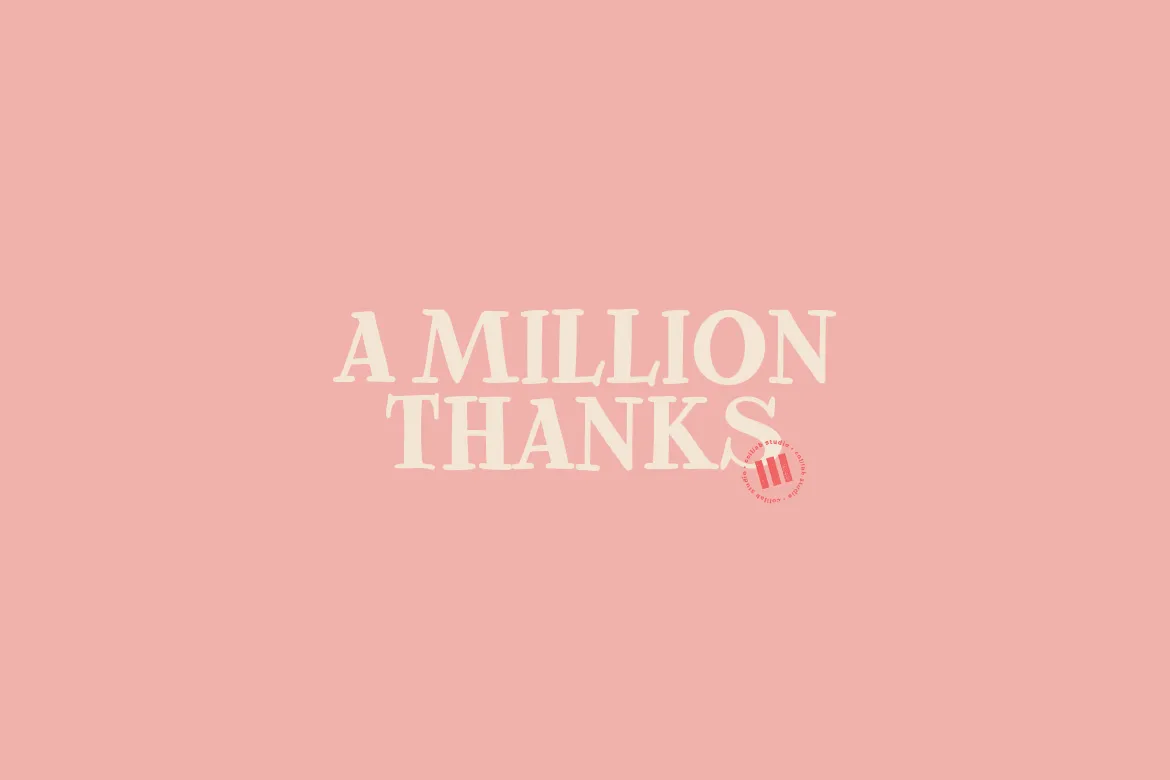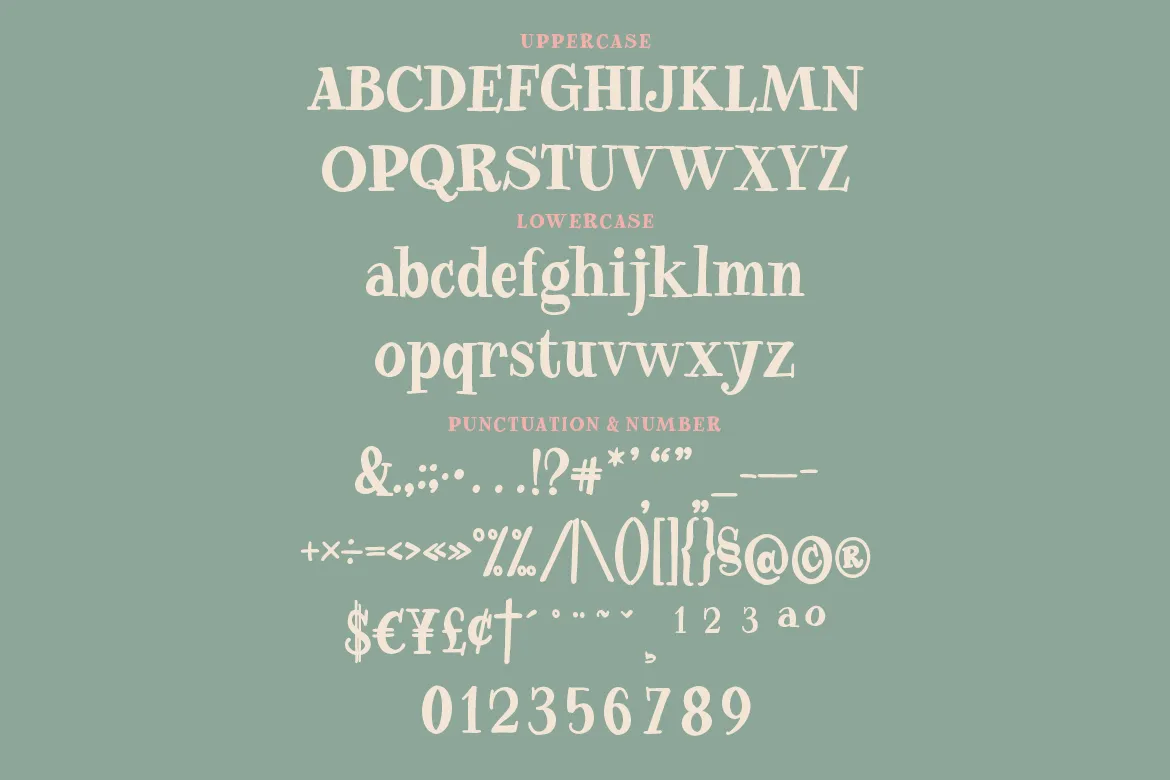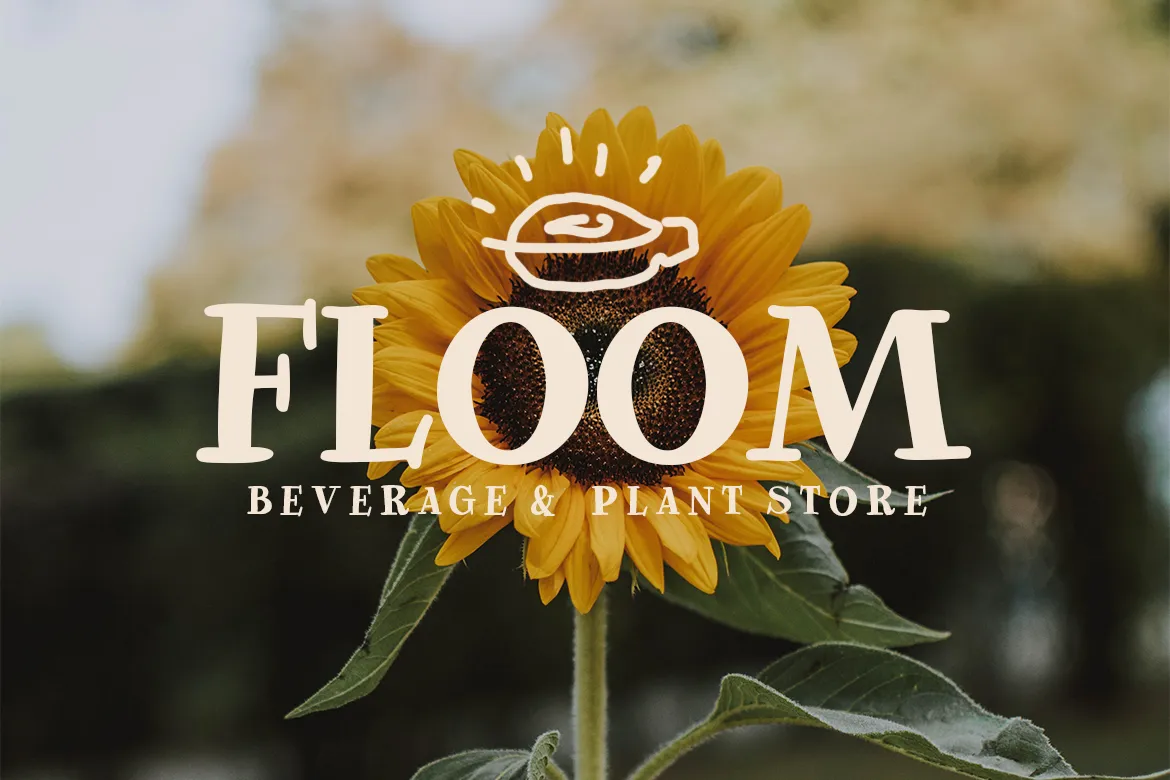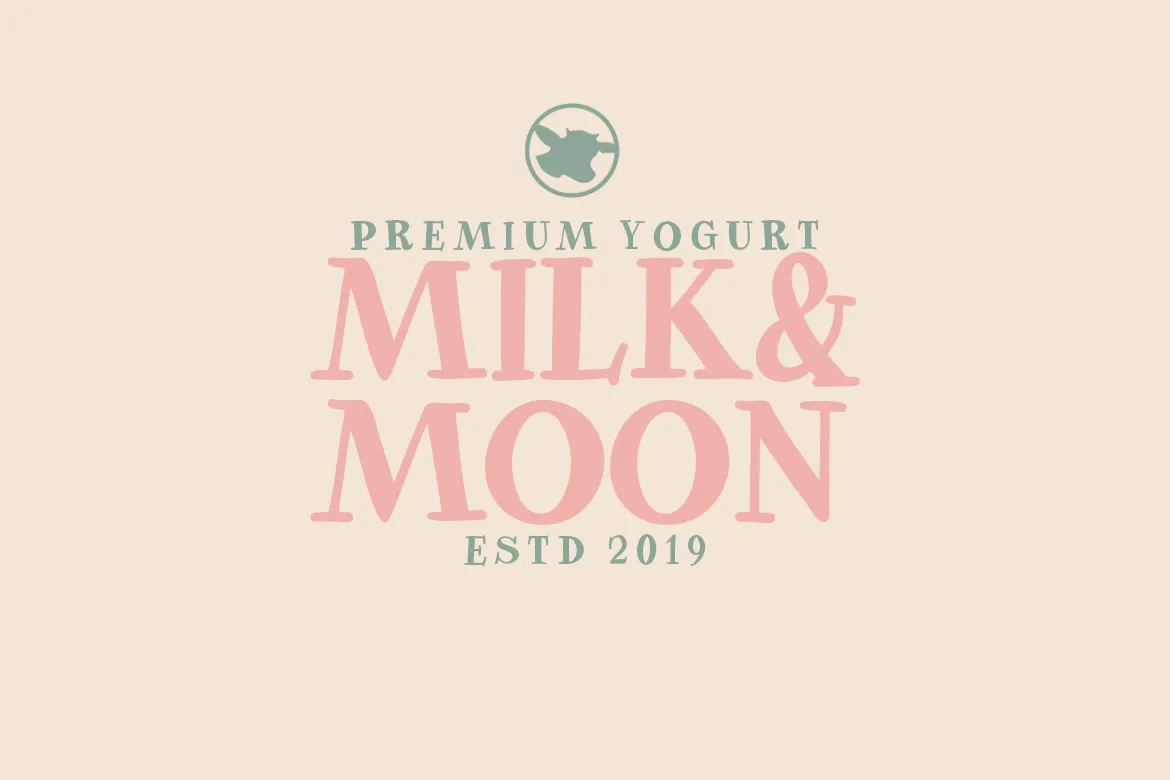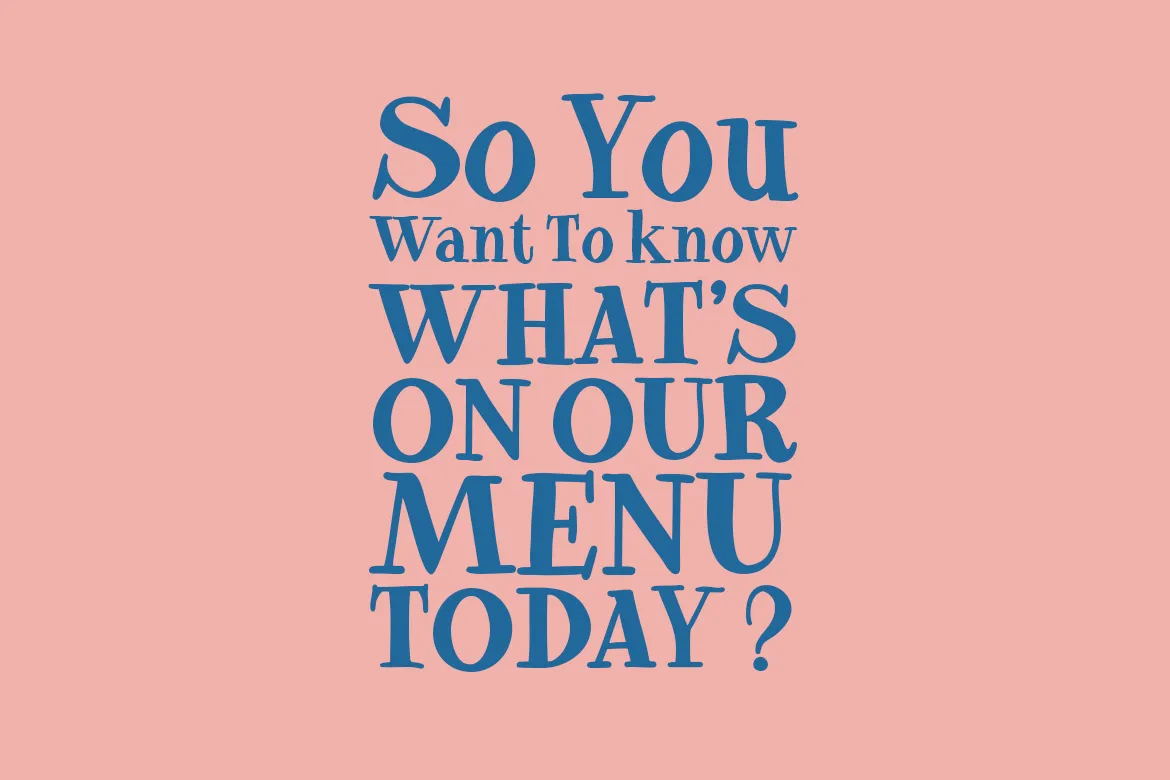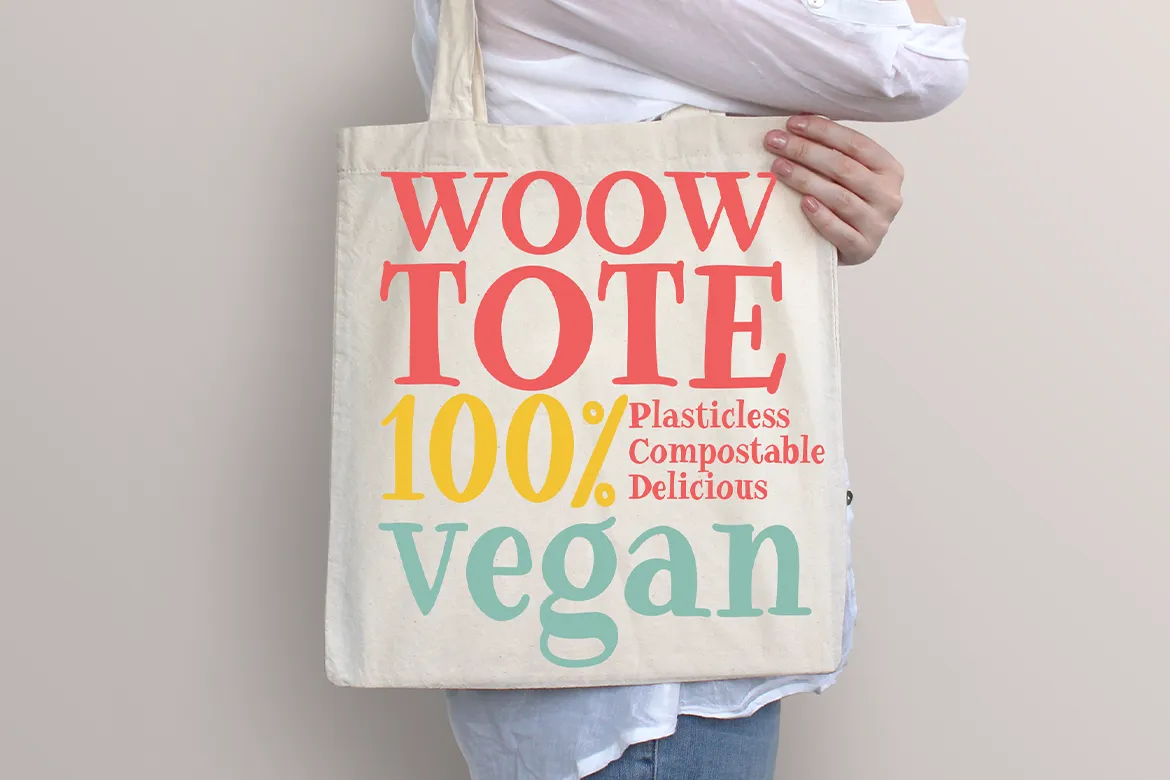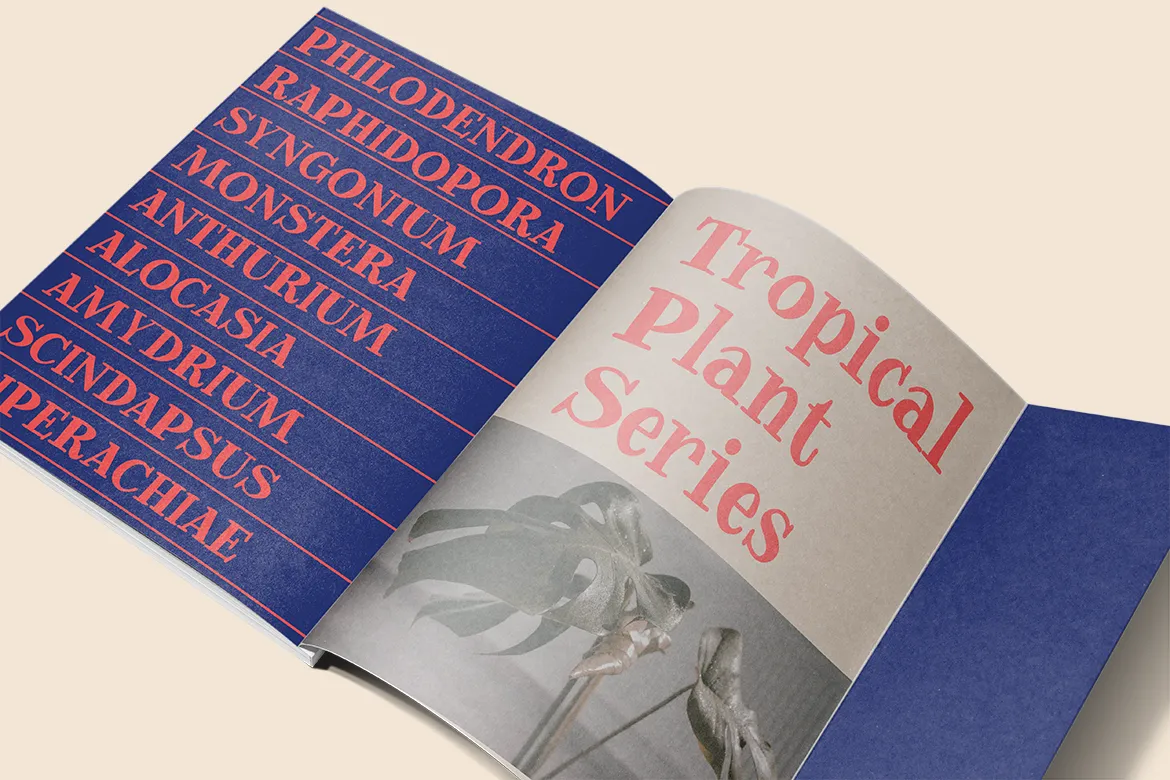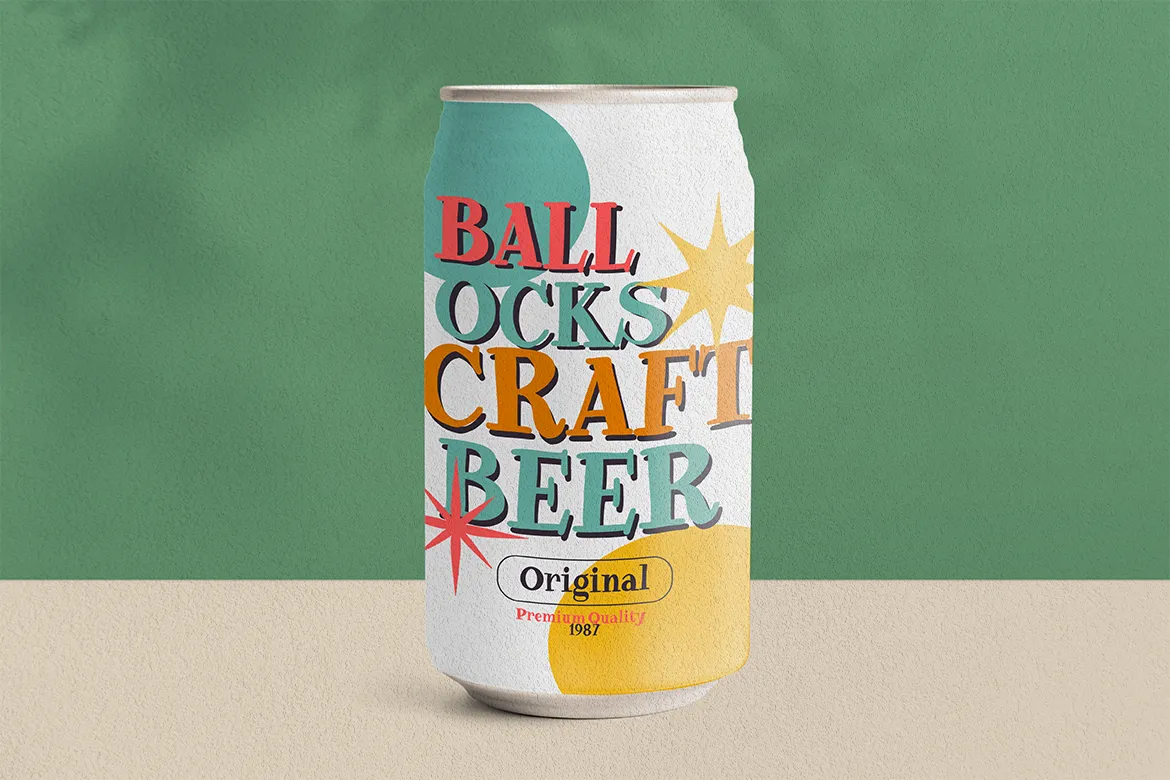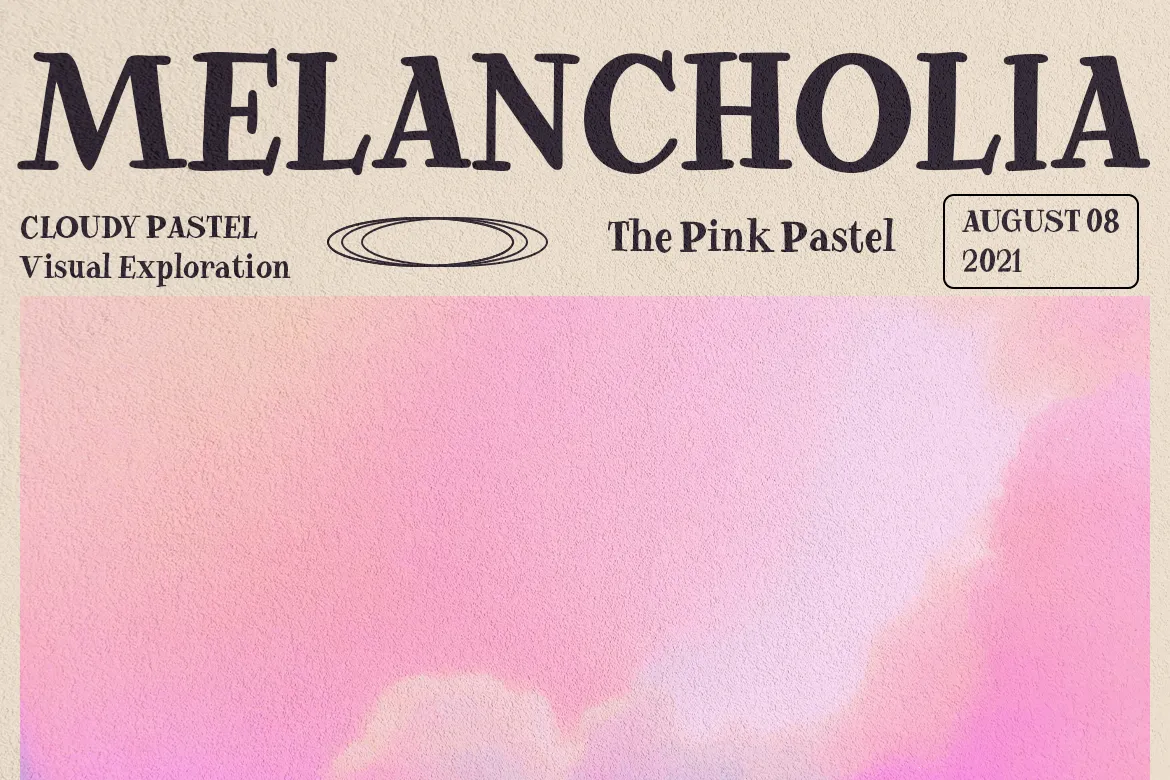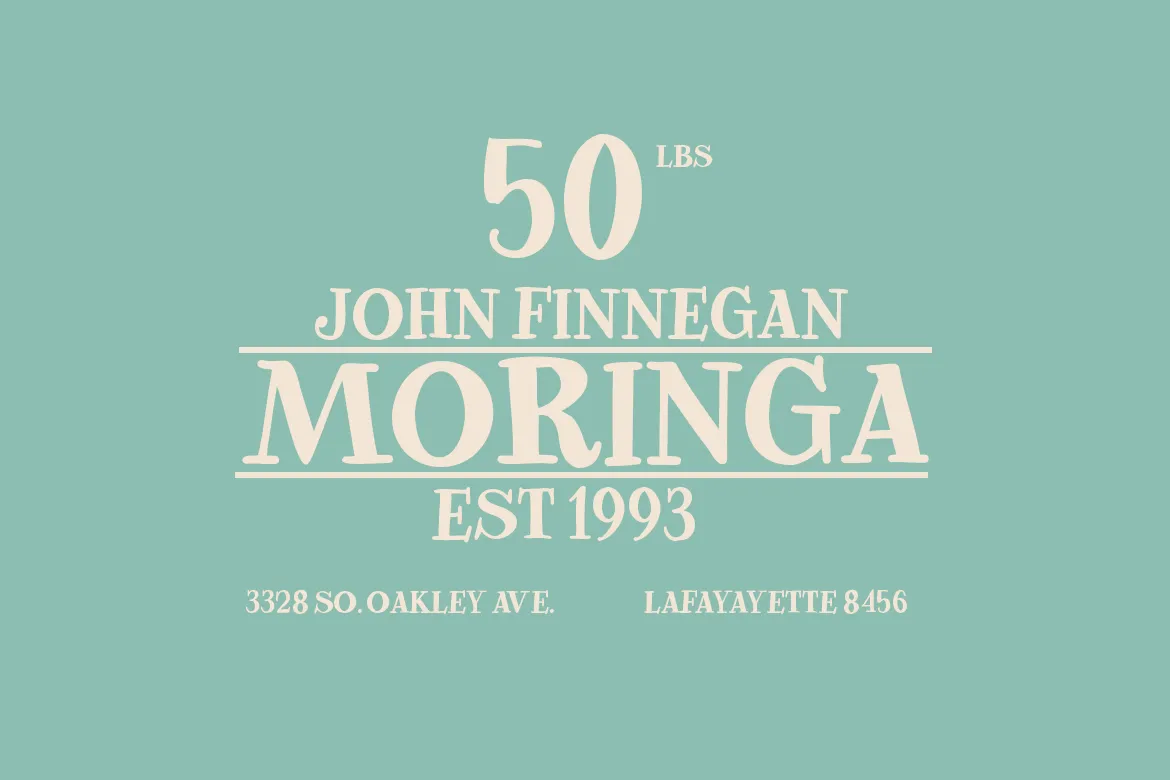
Seeking for a sans-serif font but you don’t want it to look plain? And you need the fonts that are strongly inspired by a handwriting style?
Harnessing the power of simplicity, Freed Madison is a contemporary serif font. It’s one of its kind, giving off a sense of luxury even with plainer characters. The details in each character enhances the overall look and feel of your project, which is truly unique from any other serif fonts out there!
Beside, Freed Madison is a sophisticated and stylish font that embodies all that is good in the world of design. It is a font that looks great on both vintage and modern design, allowing it to be used for virtually any purpose, from business to pleasure!